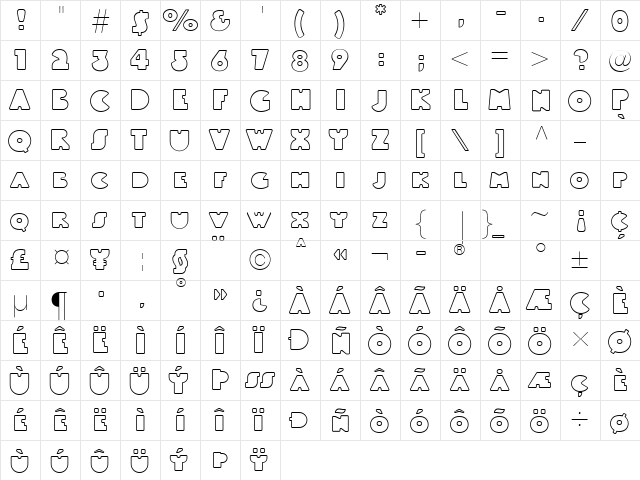
LTBlackWhiteOutline Black Font Preview
LTBlackWhiteOutline Black
Design Context for LTBlackWhiteOutline Typeface
LTBlackWhiteOutline is built around its visual character rather than neutral utility — its distinctive forms are designed to make an impression at display sizes.
Font Pairing: Pair with a clean neutral sans-serif for body copy to let LTBlackWhiteOutline's character lead without overwhelming the composition.
Pro Tip: Use LTBlackWhiteOutline exclusively at display sizes — it was designed to be seen, not read at length. Let a neutral companion handle body copy.